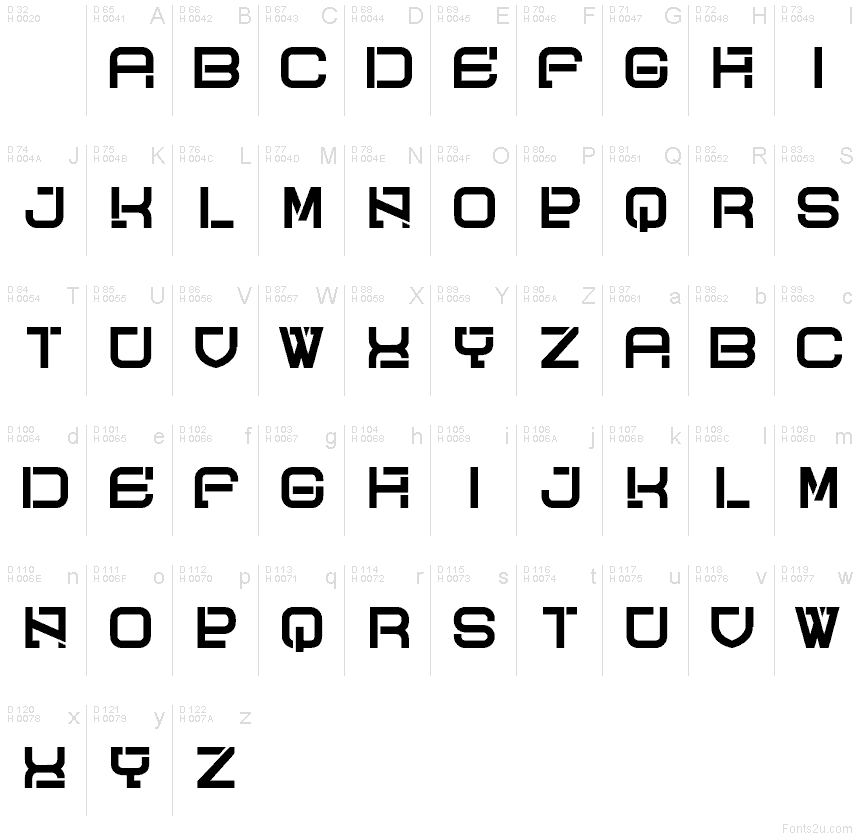
League Bold
League Bold font by Vladimir Nikolic is a free techno display typeface. Built on the League family’s modular skeleton, it pushes a bold, even stroke through squared curves and clipped edges, then punctuates forms with those signature “chip” cutouts that read like hardware slots. The result is crisp and mechanical without feeling cold—wide counters, tight rhythm, and blocky silhouettes that snap into place at large sizes.
Using League Bold, titles lock up fast and read with swagger: esports branding, sci‑fi posters, game menus, tech product packaging, streaming overlays, and club flyers. This free font thrives where you want a futuristic punch that stays legible. Keep body copy in a neutral geometric sans and let League Bold handle the headlines; try generous tracking for extra air at billboard scale.